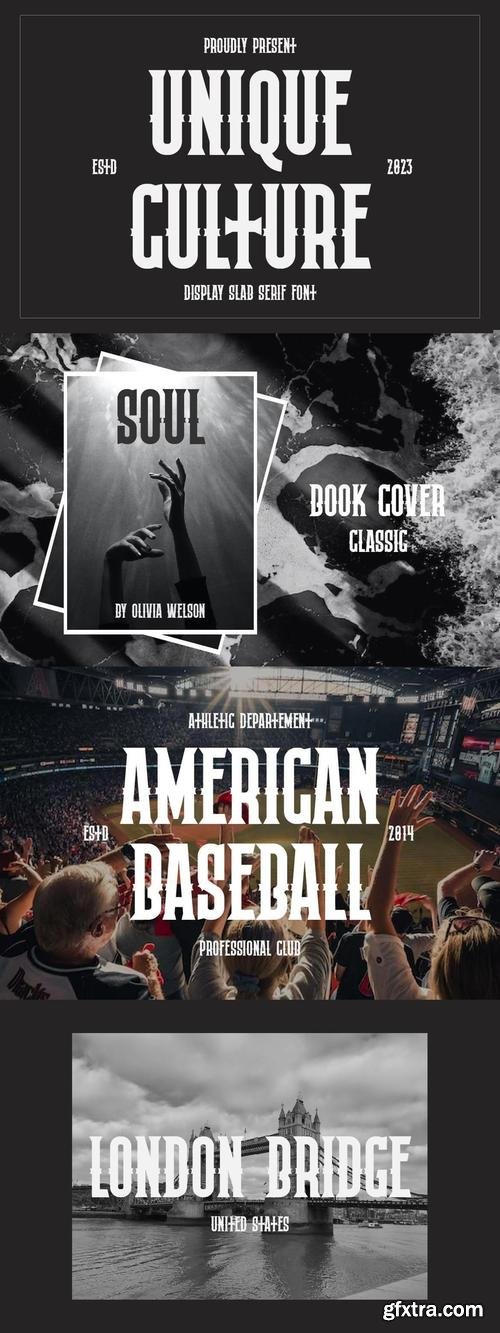
Unique Culture is a bold western slab serif display font inspired by classic western-style typography. With its strong and distinctive letterforms, this font is perfect for logotypes, advertisements, branding projects, photography watermarks, magazines, invitations, product packaging, corporate branding, labels, business projects, and more. Whether you're working on a vintage, rustic, or modern western design, Unique Culture adds a timeless and bold character to your work.